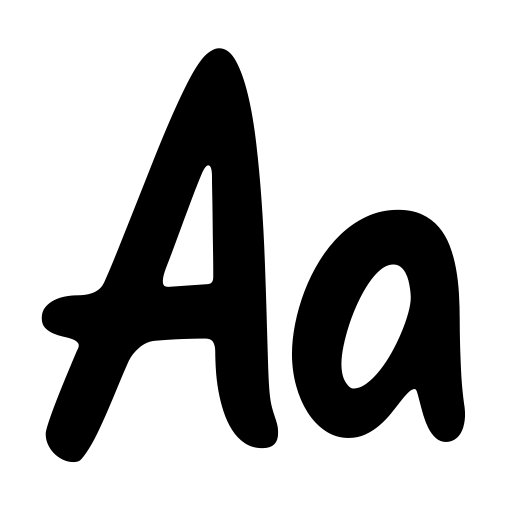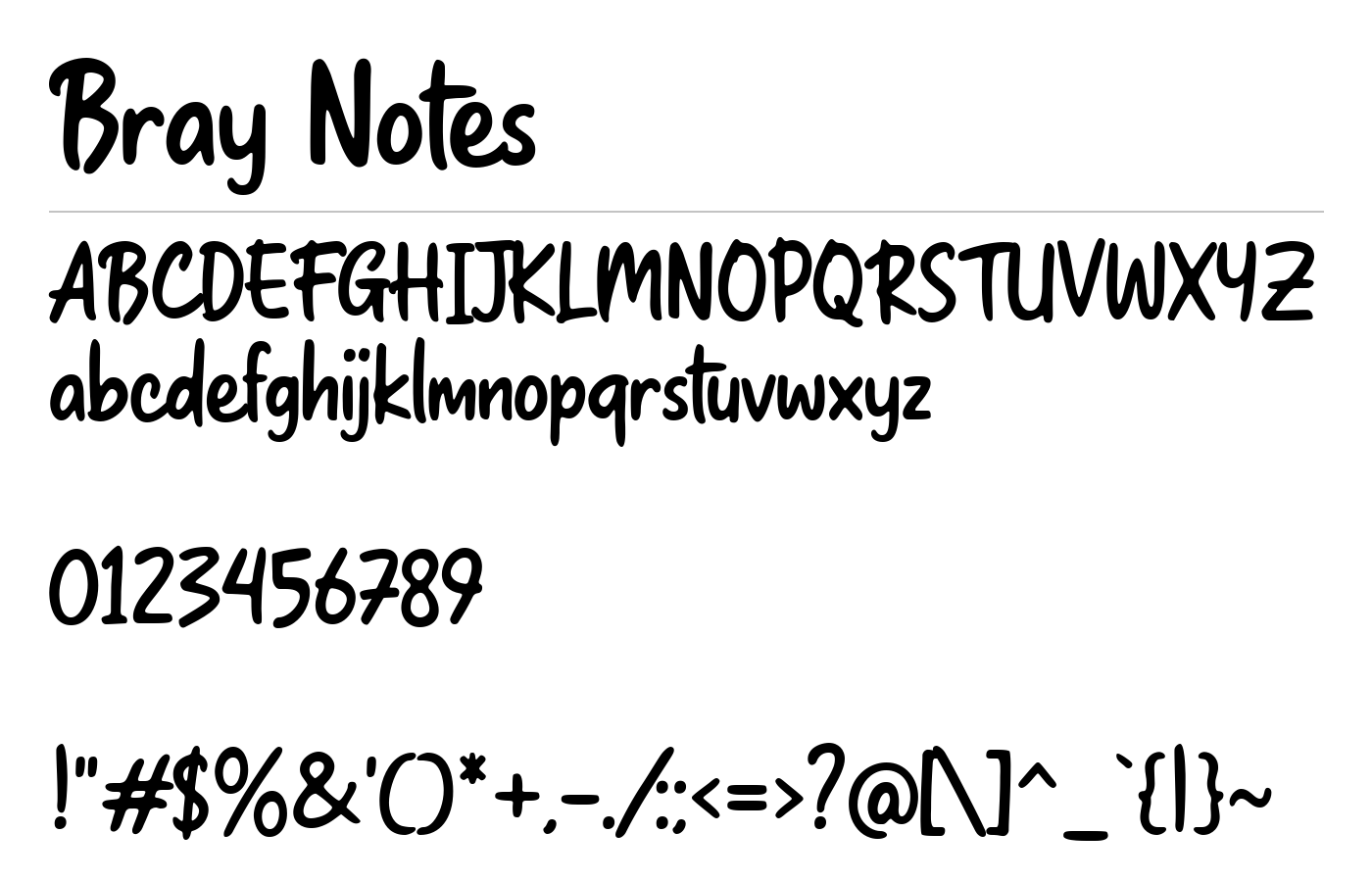
Bray Notes is a casual, handwritten sans serif font that feels friendly and approachable with its smooth, rounded strokes and lively letterforms. Its moderate weight and open spacing make it ideal for creating an informal, personal touch in designs, perfect for notes, invitations, or branding that seeks a warm, playful vibe. This font works well in headlines, logos, and digital content where a relaxed yet clear style is desired.
Bray Notes Font
About Bray Notes Font